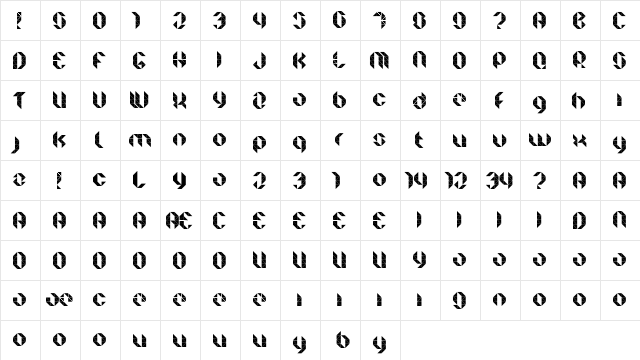
Facet Ultra Regular
| Designer | Svetoslav Simov |
Design Context for Facet Ultra Typeface
Facet Ultra is a composed and adaptable typeface that performs quietly and consistently across a wide range of design contexts.